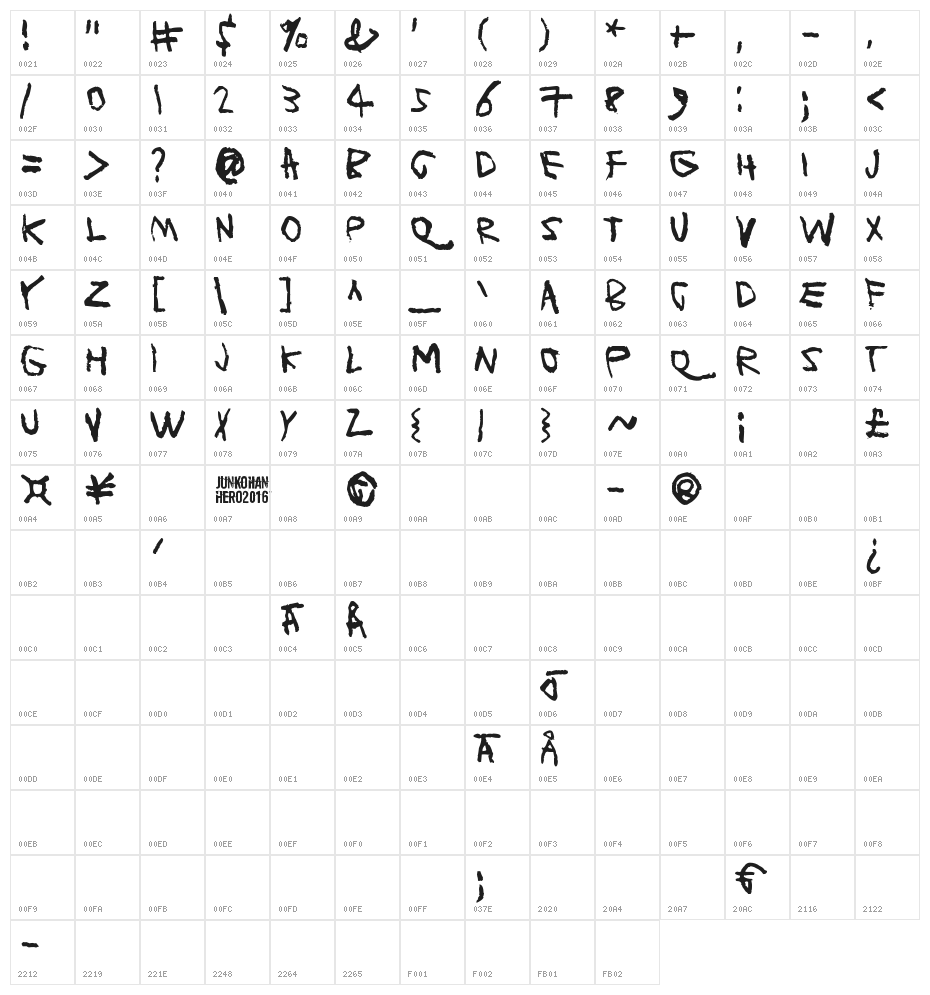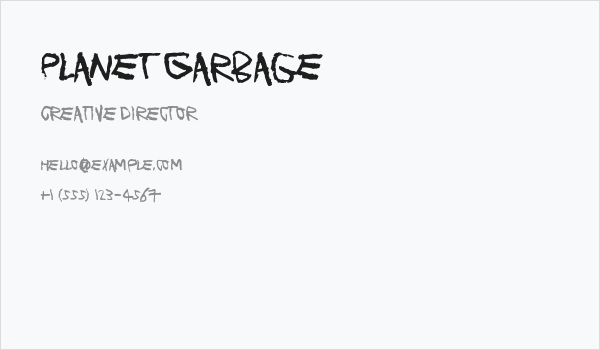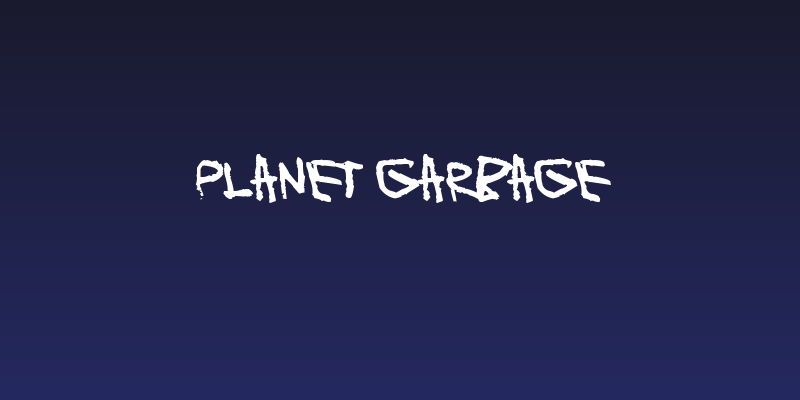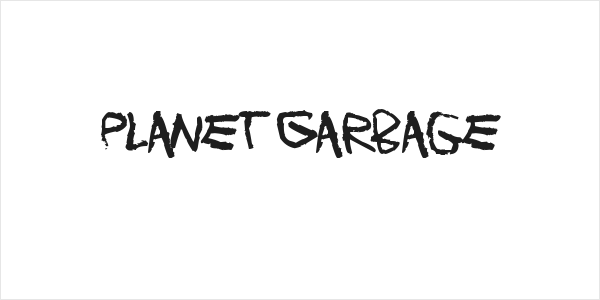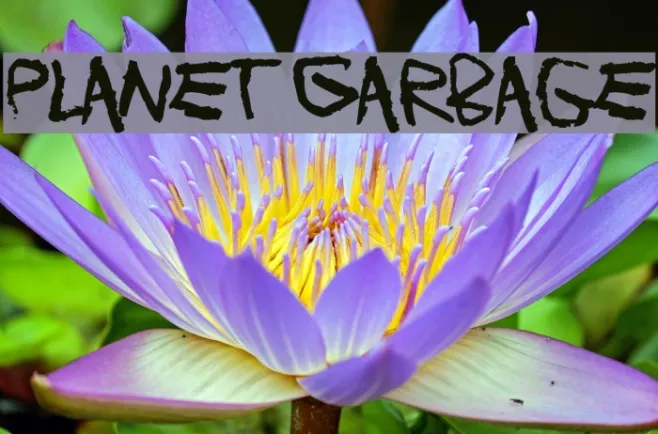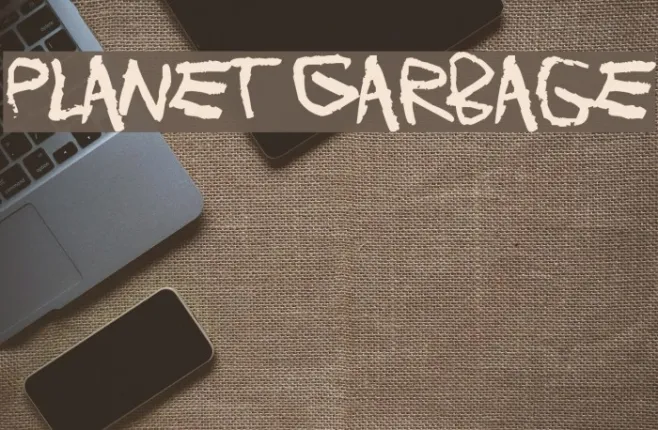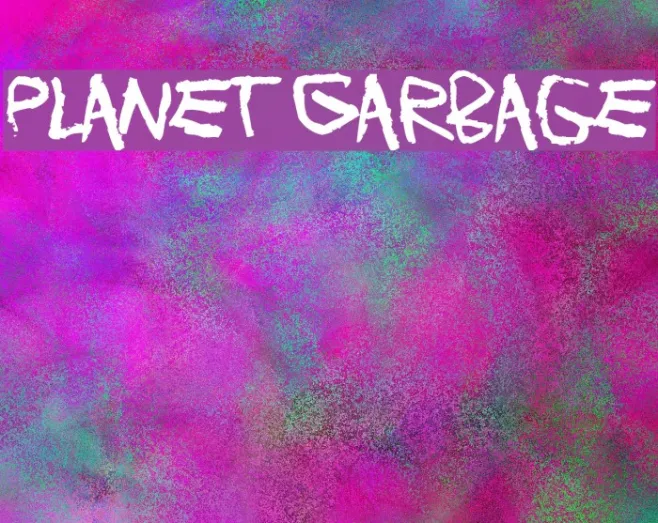
Planet Garbage Font
Planet Garbage Description
This font exudes a raw, expressive energy with its bold, brush-like strokes that create a sense of urgency and dynamism. The characters are irregular and rugged, giving it a hand-drawn appearance that feels both spontaneous and artistic. The uppercase and lowercase letters maintain a consistent style, with jagged edges and varying stroke thicknesses that add to its chaotic charm. Numbers and special characters follow the same aesthetic, making the font versatile for creative projects. Its unique style makes it stand out, perfect for designs that require a touch of rebellion or an edgy vibe.
| Proposed Projects | Ideal for album covers, graffiti art, posters, and any project needing an edgy, artistic touch. |